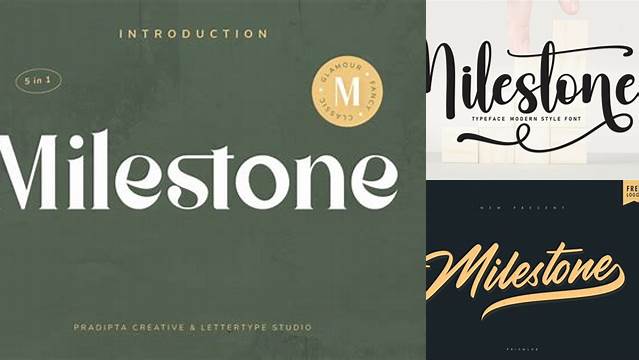
Hey there, font fanatics! Ready to dive into the wonderful world of typography? Today, we're focusing on the milestone free version script font, a font that can add a touch of elegance, personality, and flair to your designs. This guide is your ultimate resource, providing everything you need to know about milestone free version script font, from its origins and characteristics to where you can snag it for free. So, buckle up, grab your favorite beverage, and let's get started! This article is your all-in-one guide, covering the origin, features, and download locations for this awesome font. We'll also explore some creative ways to use it and answer some burning questions you might have. Let's get this font party started!
1. Unveiling the Milestone Script Font: A Brief History
Alright, guys, let's start with a little background. The milestone free version script font is a stylish script font, often characterized by its flowing strokes, elegant curves, and handwritten feel. While I don't have specific details on the exact creator or origin story, script fonts like this typically draw inspiration from traditional calligraphy and handwriting styles. It's designed to mimic the natural flow of penmanship, offering a personal and artistic touch to any project. The history of script fonts is fascinating, dating back to the days of quill pens and ink. Script fonts were used for everything from official documents to personal letters, and they evolved over time with different styles and techniques. Today, they continue to be a popular choice for designers looking to add a touch of sophistication or a handcrafted vibe. The milestone free version script font, like other script fonts, is a testament to the enduring appeal of handwritten aesthetics in a digital world. This font offers a modern take on the classic script style, making it versatile and suitable for various design applications. The font's availability in a free version makes it accessible to everyone, regardless of budget, encouraging creativity and exploration. Getting access to a milestone free version script font is like getting a key to unlock your creative potential!
2. Key Characteristics of the Milestone Script Font
So, what makes the milestone free version script font stand out from the crowd? Well, let's take a closer look at its key characteristics. First, its primary characteristic is its flowing and connected letterforms. This means that the letters are often joined together, creating a seamless and graceful appearance. The elegant curves and strokes add a touch of sophistication, making it perfect for projects that require a touch of class. Another key feature is its versatility. It can be used for everything from wedding invitations and logos to social media graphics and website headers. The font's flexibility allows it to adapt to a wide range of design styles and purposes. It’s also important to mention the font's readability. While it's a script font, it's generally designed to be legible, ensuring that your message is conveyed clearly to your audience. The weight and style of a script font can impact its readability, so selecting the right font and using it appropriately is essential for achieving the desired effect. You should remember that this script font is a visual treat, guys, it’s all about making your text look good. With the proper use, the milestone free version script font is certain to elevate the look and feel of your designs.
2.1. Font Styles and Weights
When looking at a milestone free version script font, you’ll often find several variations and styles. These variations can include different weights (light, regular, bold, etc.) and styles (italic, condensed, etc.). The variety of these styles can further enhance the font's versatility. For instance, a lighter weight might be suitable for delicate designs or body text, while a bold weight could be ideal for headings or attention-grabbing elements. Italic styles can add a sense of dynamism and movement, while condensed versions can be helpful when space is limited. Understanding the range of styles is critical because it allows you to select the perfect font for your specific project needs. Experimenting with different styles is a great way to discover what works best. Different styles also offer different visual impacts. Therefore, try experimenting with the font's variations. The choice of weight and style will significantly influence the overall impression of your designs, so choose wisely!
2.2. Letterform Details and Design Features
The intricate details of the milestone free version script font are where its charm truly lies. Observe the way the letters are crafted. These design features can include delicate serifs, unique letter connections, and subtle variations in stroke width. These subtleties are the elements that give the font its personality. The design of a script font often draws inspiration from calligraphy and traditional hand lettering. This is evident in the way letters flow, the graceful curves, and the balance between thick and thin strokes. Another thing to consider is how well the font handles specific letter combinations and ligatures (where two or more letters are joined together). A well-designed script font will create visually pleasing text, even with tricky letter combinations. Remember, guys, the small details are what make this font so special. By understanding these intricacies, you can use the milestone free version script font to achieve a refined and visually appealing result.